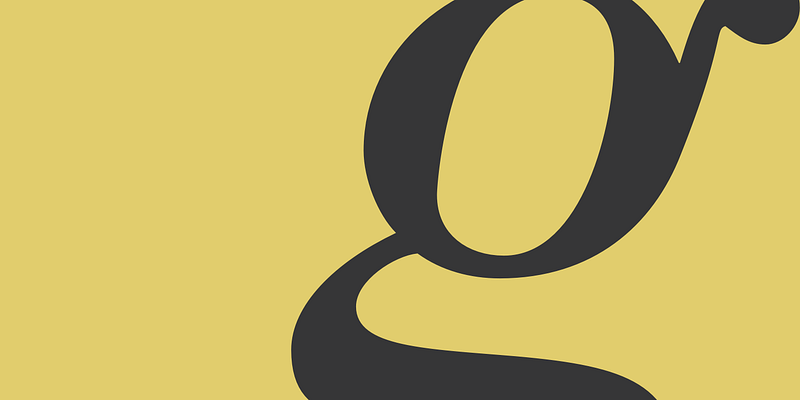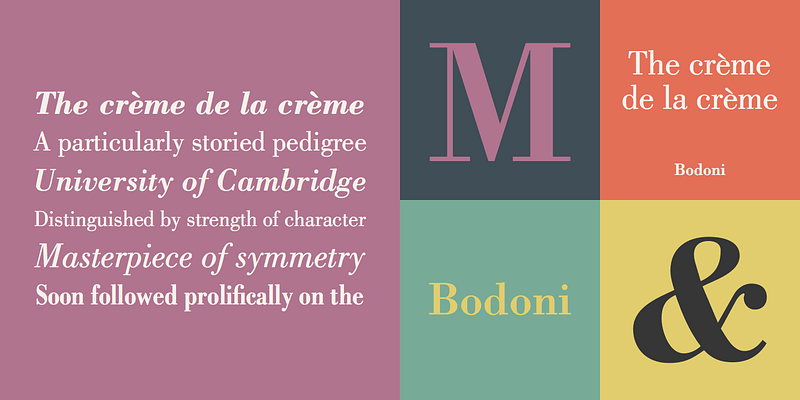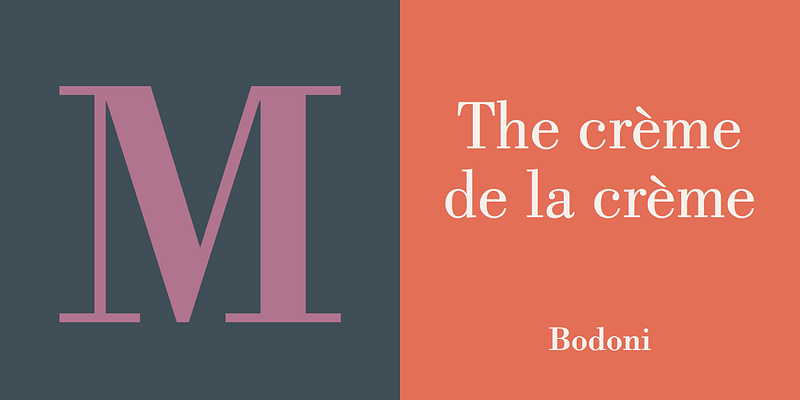
Giambattista Bodoni (1740–1813) was called the King of Printers and the Bodoni font owes its creation in 1767 to his masterful cutting techniques. Predecessors in a similar style were the typefaces of Pierre Simon Fournier (1712–1768) and the Didot family (1689-1836). The Bodoni font distinguishes itself through the strength of its characters and embodies the rational thinking of the Enlightenment. The new typefaces displaced the Old Face and Transitional styles and was the most popular typeface until the mid-19th century. Bodoni’s influence on typography was dominant until the end of the 19th century and, even today, inspires new creations. Working with this font requires care, as the strong emphasis of the vertical strokes and the marked contrast between the fine and thick lines lessens Bodoni’s legibility, and the font is therefore better in larger print with generous spacing. The Bodoni of Morris F. Benton appeared in 1911 with American Type Founders.